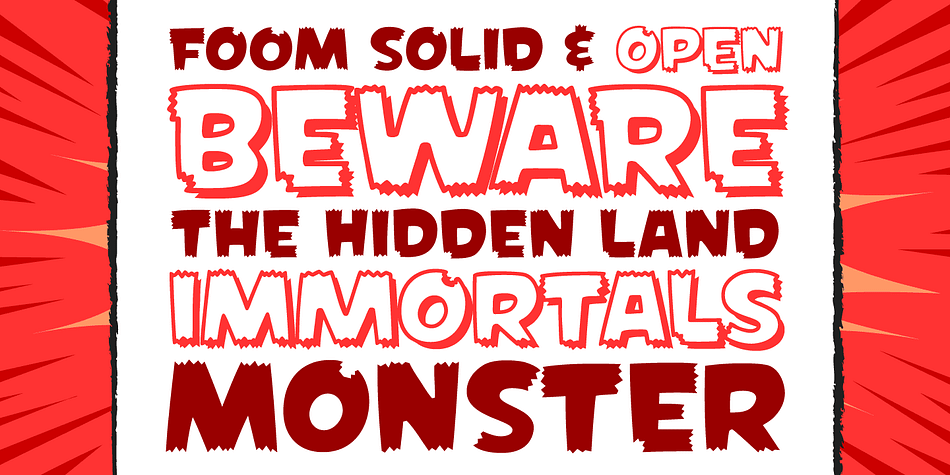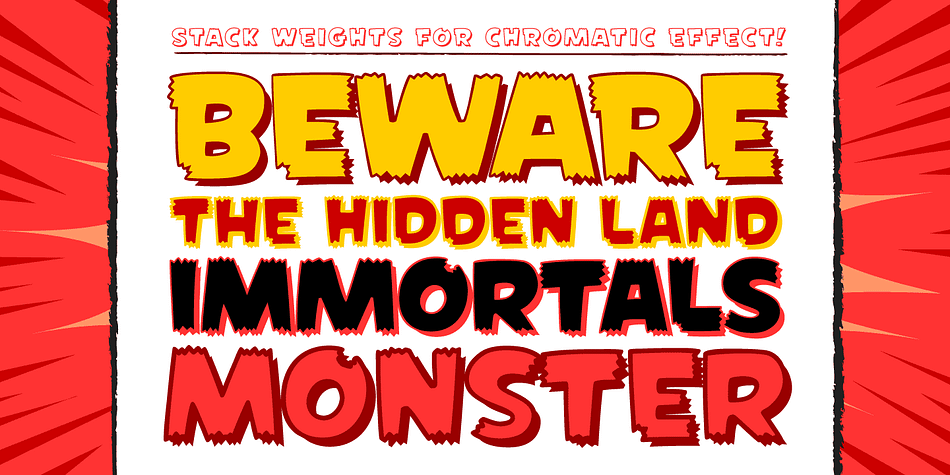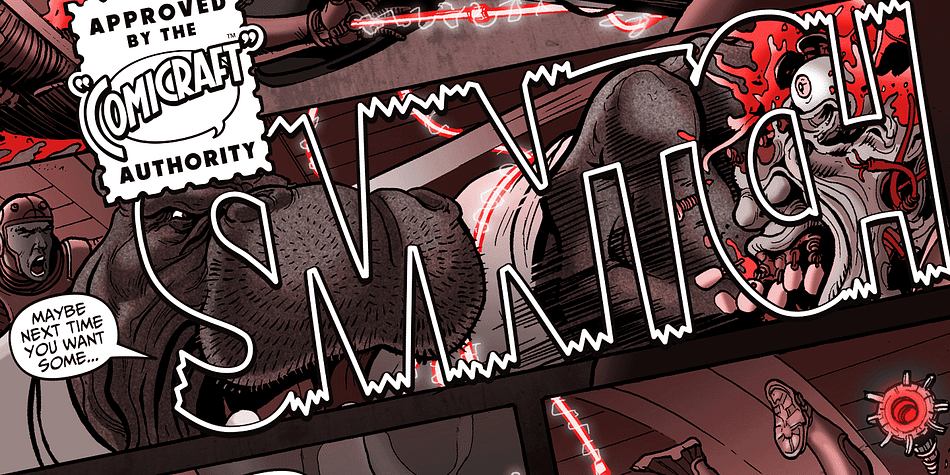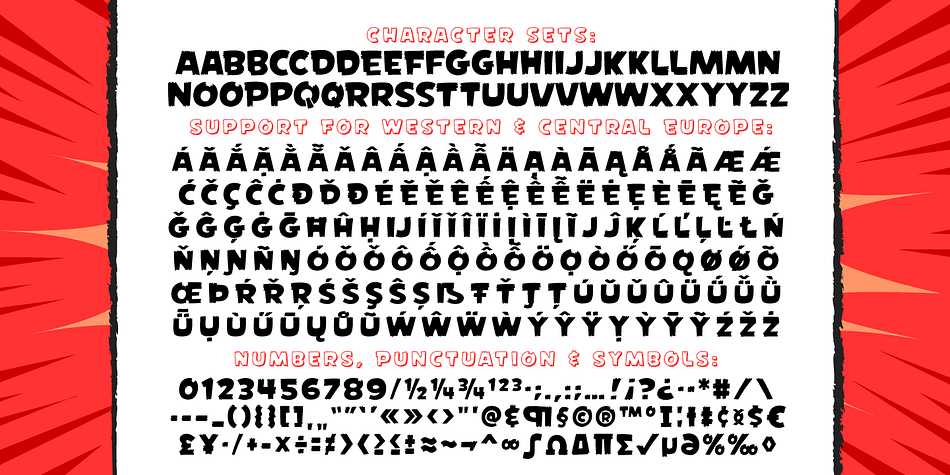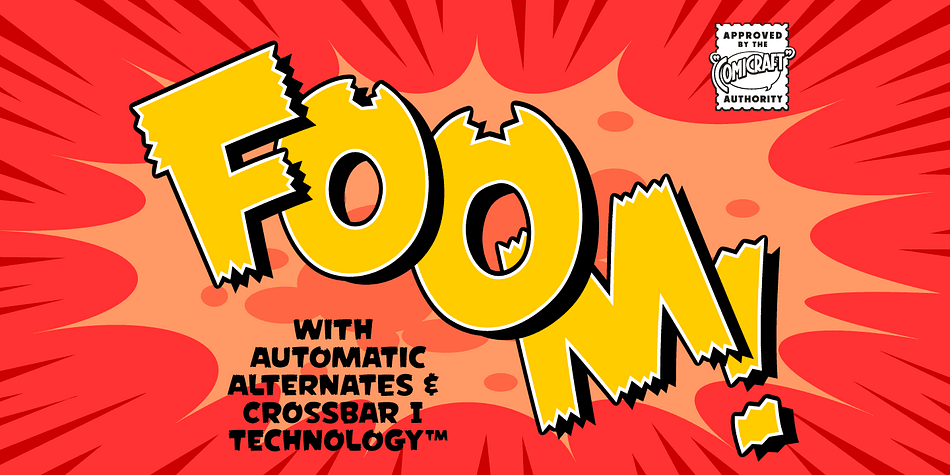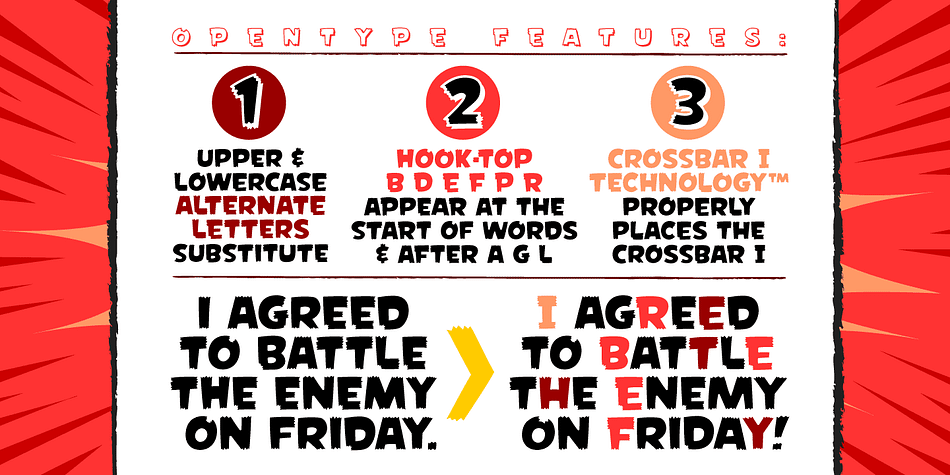
Designed by John Roshell, Foom is a comic font family. This typeface has two styles and was published by Comicraft.
DOCTOR OCTOPUS! BOOM! DOCTOR DOOM! ‘SHROOM! DOCTOR EVIL! BA-THROOM! DOCTOR FRANKENSTEIN! KRA-KOOM Never let it be said that Comicraft does not possess a Varied Vocabulary of Vile Villainy or a Tremendous Thesaurus of Terrible Tinkerers! It’s our belief that every Medley of Madmen, every Rogue’s Gallery of Ragged Rascals and every Sinister Selection of Scoundrels, Scalliwags and Sick Scientists—even they deserve a Nefariously Notorious Name-Finagling Font to announce their Apocalyptic Arrival. That font is here, towering murderously above the city blocks of Manhattan even as we speak… It’s a Despicable Doctor of Dastardly Deeds, it’s a Master of Evil Scheming, an Infamous Infidel, your Arch Enemy, your NEMESIS… IT’S THE END OF THE WORLD AS WE KNOW IT! FING… FAN… FOOM!